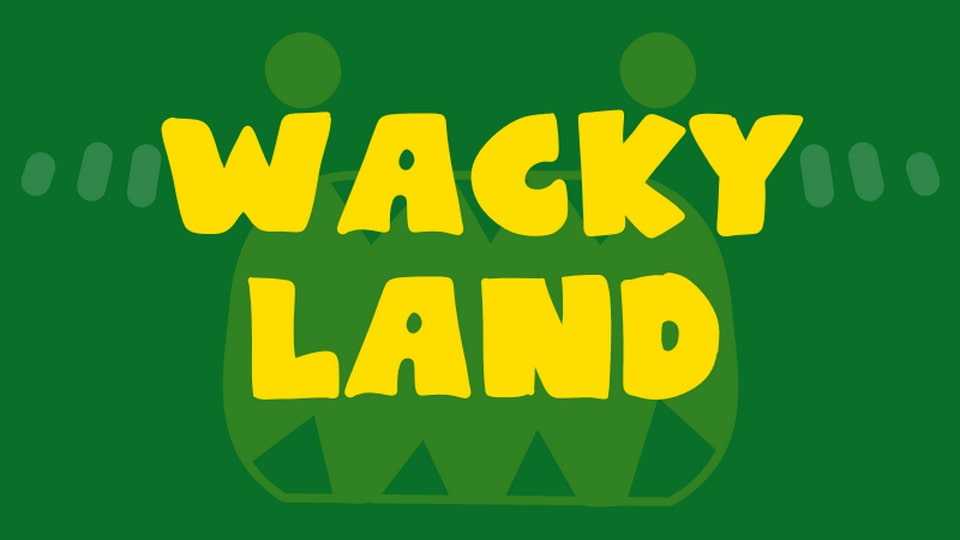
Download Wacky Land font, a bold and quirky cartoon typeface full of playful personality what has a chunky, handcrafted shape with a fun, exaggerated style.